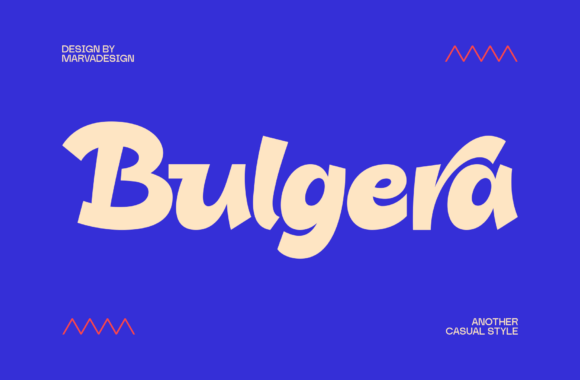
Bulgera Font: A Bold, Dynamic, and Playful Typographic Style
The Bulgera font is a modern and eye-catching typeface that has gained popularity in recent times due to its unique and captivating design. Exhibiting a bold, dynamic, and playful typographic style, Bulgera features smooth curves, exaggerated letterforms, and a slightly slanted orientation, giving it a casual yet modern aesthetic. The thick strokes and rounded edges of this font create a sense of warmth and friendliness, making it ideal for branding, advertising, and creative designs.
Characteristics of Bulgera Font
Bulgera font is characterized by its distinctive features, which set it apart from other typefaces. Some of the key characteristics of Bulgera include:
- Smooth Curves: Bulgera features smooth, flowing curves that give it a dynamic and playful look.
- Exaggerated Letterforms: The font boasts exaggerated letterforms, which add to its bold and attention-grabbing style.
- Slightly Slanted Orientation: Bulgera has a slightly slanted orientation, giving it a casual and modern feel.
- Thick Strokes: The font features thick strokes, which create a sense of boldness and confidence.
- Rounded Edges: The rounded edges of Bulgera add a touch of warmth and friendliness to its overall aesthetic.
Uses of Bulgera Font
The Bulgera font is versatile and can be used in a variety of design applications, including:
- Branding: Bulgera is ideal for branding and logo design, as it creates a bold and memorable impression.
- Advertising: The font’s attention-grabbing style makes it perfect for advertising and marketing materials.
- Creative Designs: Bulgera’s playful and dynamic style makes it suitable for creative designs, such as posters, flyers, and brochures.
- Digital Media: The font can be used in digital media, including social media graphics, website headers, and mobile app designs.
Benefits of Using Bulgera Font
Using Bulgera font in your designs offers several benefits, including:
- Unique Style: Bulgera’s distinctive style sets it apart from other typefaces, making your designs stand out.
- Improved Readability: The font’s bold and clear design ensures improved readability, even at smaller font sizes.
- Emotional Connection: Bulgera’s warm and friendly aesthetic creates an emotional connection with your audience, making your designs more relatable.
- Versatility: The font’s versatility makes it suitable for a wide range of design applications.
Tips for Using Bulgera Font Effectively
To get the most out of Bulgera font, follow these tips:
- Use it Sparingly: Use Bulgera font sparingly to avoid overwhelming your designs. It works best as a headline or title font.
- Pair it with Other Fonts: Pair Bulgera with other fonts to create visual interest and contrast.
- Experiment with Colors: Experiment with different colors to find the perfect combination that complements your design.
- Consider Font Size: Consider the font size and adjust it according to the design application.
In conclusion, Bulgera font is a bold, dynamic, and playful typeface that offers a unique and captivating design. Its smooth curves, exaggerated letterforms, and slightly slanted orientation make it ideal for branding, advertising, and creative designs. With its thick strokes and rounded edges, Bulgera creates a sense of warmth and friendliness, making it perfect for designs that require a personal touch. By following the tips outlined above, you can use Bulgera font effectively and create stunning designs that grab attention.
Here are some frequently asked questions about Bulgera font:
- What is Bulgera font? Bulgera font is a modern and eye-catching typeface characterized by its bold, dynamic, and playful style.
- What are the key features of Bulgera font? The key features of Bulgera font include smooth curves, exaggerated letterforms, a slightly slanted orientation, thick strokes, and rounded edges.
- What are the uses of Bulgera font? Bulgera font can be used in branding, advertising, creative designs, and digital media.
- What are the benefits of using Bulgera font? The benefits of using Bulgera font include its unique style, improved readability, emotional connection, and versatility.